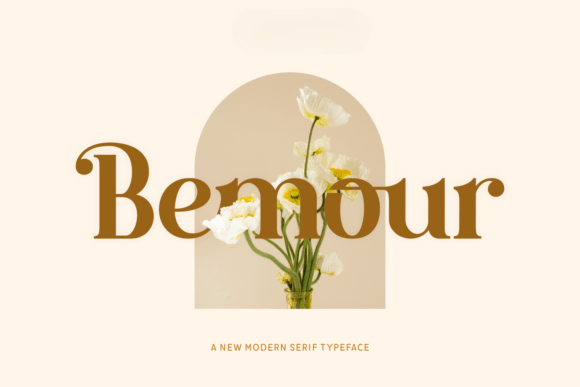
Bemour Font: Elevate Your Design with Elegance and Sophistication
In the world of typography, fonts play a crucial role in conveying the tone and personality of a brand, product, or service. Among the numerous fonts available, Bemour Font stands out as a stunning, modern serif typeface that embodies warmth, sophistication, and elegance. Designed to make a lasting impression, Bemour Font is perfect for a wide range of applications, including branding, wedding invitations, packaging, and lifestyle blogs.
What is Bemour Font?
Bemour Font is a beautiful, modern serif typeface characterized by its soft swashes and refined curves. Its unique design elements make it an excellent choice for designers seeking to add a touch of sophistication and luxury to their projects. The font’s gentle swashes and curves create a sense of fluidity and movement, making it perfect for designs that require a high level of elegance and refinement.
Key Features of Bemour Font
- Soft Swashes: Bemour Font features soft swashes that add a touch of elegance and sophistication to any design.
- Refined Curves: The font’s refined curves create a sense of fluidity and movement, making it perfect for designs that require a high level of elegance and refinement.
- Modern Serif: Bemour Font is a modern serif typeface that combines traditional serif elements with modern design principles.
- Highly Versatile: The font is highly versatile and can be used for a wide range of applications, including branding, wedding invitations, packaging, and lifestyle blogs.
Applications of Bemour Font
Bemour Font is an incredibly versatile typeface that can be used for various design projects. Here are some of the most popular applications:
- Branding: Bemour Font is perfect for branding projects that require a high level of sophistication and elegance. Its unique design elements make it an excellent choice for luxury brands, high-end products, and services.
- Wedding Invitations: The font’s soft swashes and refined curves make it an excellent choice for wedding invitations, adding a touch of romance and elegance to any design.
- Packaging: Bemour Font is perfect for packaging designs that require a high level of sophistication and luxury. Its modern serif design and soft swashes make it an excellent choice for high-end products.
- Lifestyle Blogs: The font’s elegant design and refined curves make it an excellent choice for lifestyle blogs, adding a touch of sophistication and refinement to any article or post.
Why Choose Bemour Font?
There are several reasons why Bemour Font stands out from other typefaces:
- Unique Design: Bemour Font features a unique design that combines modern serif elements with soft swashes and refined curves.
- Elegance and Sophistication: The font exudes elegance and sophistication, making it perfect for designs that require a high level of refinement.
- Highly Versatile: Bemour Font is highly versatile and can be used for a wide range of applications.
- Easy to Read: The font is easy to read, making it perfect for body text and headlines.
Tips for Using Bemour Font
Here are some tips for using Bemour Font effectively:
- Use it for Headlines: Bemour Font is perfect for headlines and titles, adding a touch of elegance and sophistication to any design.
- Pair it with Other Fonts: The font can be paired with other fonts to create a unique and visually appealing design.
- Use it for Body Text: Bemour Font is easy to read, making it perfect for body text and articles.
- Experiment with Colors: The font looks great in various colors, so don’t be afraid to experiment and find the perfect color scheme for your design.
In conclusion, Bemour Font is a stunning, modern serif typeface that embodies elegance, sophistication, and warmth. Its unique design elements, including soft swashes and refined curves, make it perfect for a wide range of applications, from branding and wedding invitations to packaging and lifestyle blogs. With its high level of versatility, ease of use, and elegant design, Bemour Font is an excellent choice for designers seeking to add a touch of luxury and refinement to their projects.